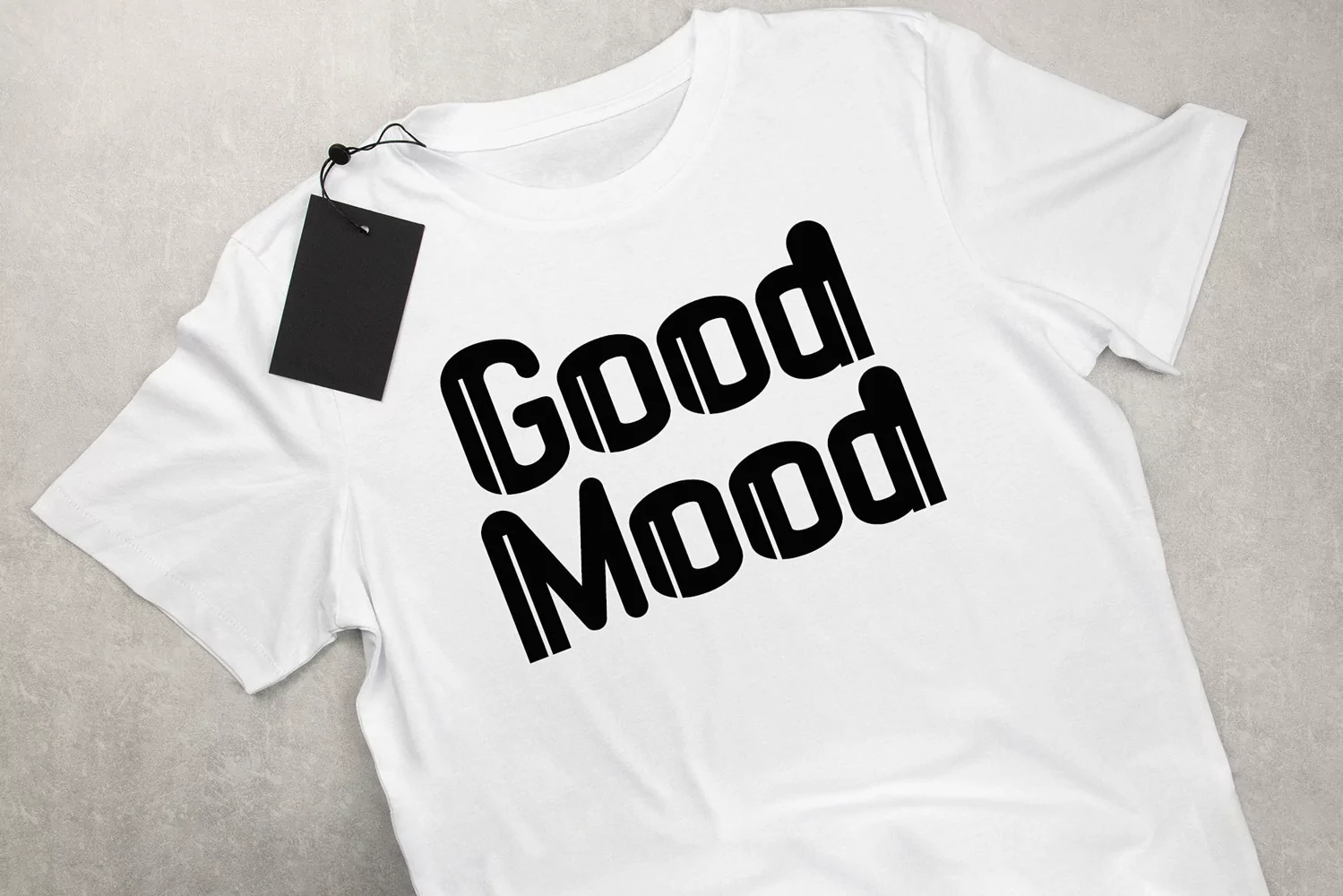
Beautiful Handwritten
Hello August is a cool and interestingly designed display font. It will elevate a wide range of crafting ideas, from cards, to branding, labels and much more.